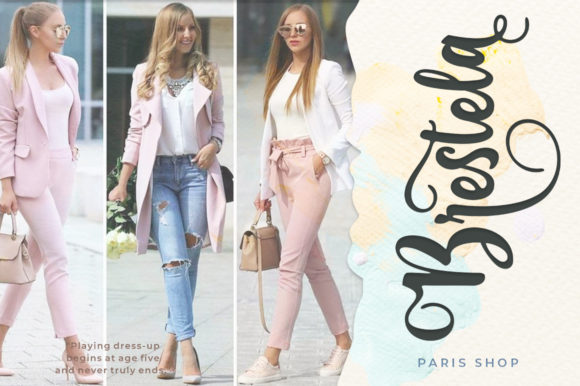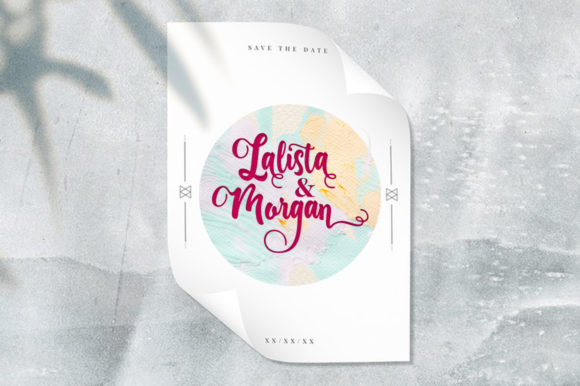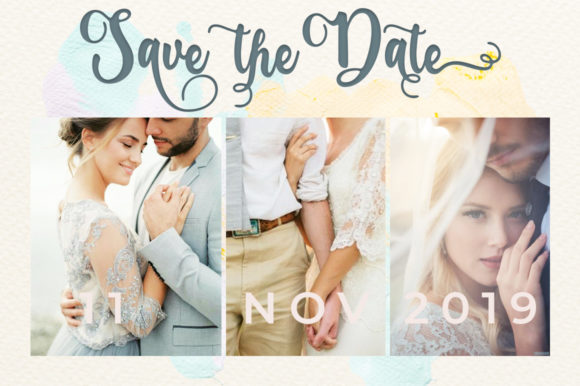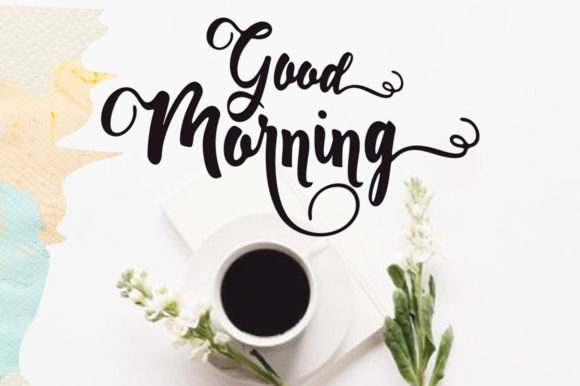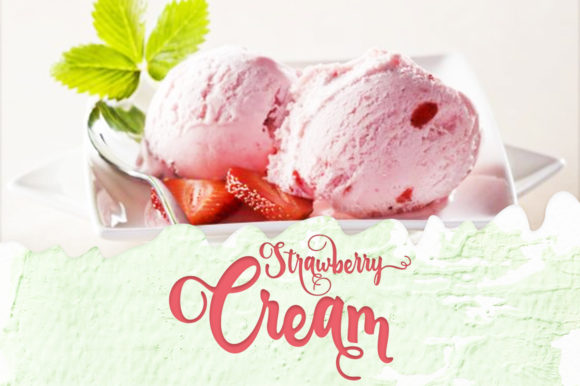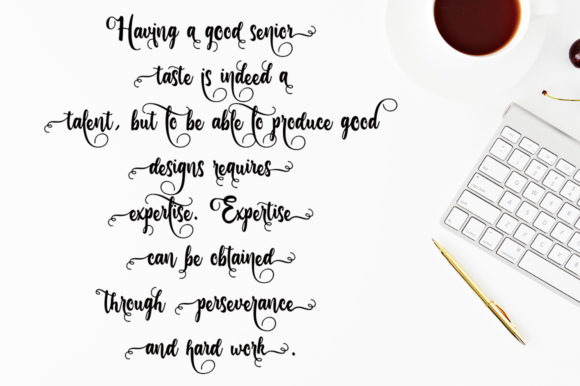
Introducing Arlistan Font: The Ultimate Elegance for Designers and Crafters
In the world of typography, fonts play a crucial role in conveying the tone and aesthetic of a design. For designers and crafters looking to elevate their projects with a touch of elegance and whimsy, the Arlistan Font is an exceptional choice. This stunning font features rounded swashes and playful details, delivering an incredibly stunning and fancy font experience that is sure to captivate audiences.
What Makes Arlistan Font Stand Out?
The Arlistan Font is distinguished by its unique blend of classic elegance and modern playfulness. Its rounded swashes add a fluid, dynamic feel to any design, while the playful details inject a sense of fun and creativity. This font is perfect for projects that require a sophisticated yet approachable look, such as branding, packaging, and editorial design.
Key Features of Arlistan Font
- Rounded Swashes: The font’s rounded swashes provide a smooth, flowing aesthetic that can add a touch of luxury to any design.
- Playful Details: The playful details in Arlistan Font ensure that the design doesn’t feel too formal or stiff, making it versatile for a wide range of applications.
- Elegant and Fancy: The overall look of Arlistan Font is incredibly elegant and fancy, making it suitable for high-end branding, wedding designs, and more.
Use Cases for Arlistan Font
Arlistan Font’s versatility makes it suitable for a variety of design projects. Here are some of the best use cases:
- Branding and Logo Design: The unique and elegant look of Arlistan Font makes it perfect for creating memorable brand identities.
- Wedding and Event Design: For wedding invitations, programs, and event branding, Arlistan Font adds a touch of sophistication and romance.
- Packaging Design: The font’s playful yet elegant feel makes it suitable for product packaging that needs to stand out on shelves.
- Editorial Design: Use Arlistan Font in magazines, blogs, and digital publications to add a touch of elegance to your editorial content.
Tips for Using Arlistan Font Effectively
To get the most out of Arlistan Font, consider the following tips:
- Pair with Simple Fonts: For maximum impact, pair Arlistan Font with simpler fonts for body text to maintain readability.
- Experiment with Swashes: Don’t be afraid to experiment with the font’s swashes and playful details to create a unique look.
- Consider Font Size: Use Arlistan Font in larger sizes for headings and titles to make the most of its elegant features.
Arlistan Font is a versatile and elegant typeface that can elevate any design project with its unique blend of rounded swashes and playful details. Whether you’re a designer looking to create stunning branding, a crafter working on a special project, or simply someone who appreciates beautiful typography, Arlistan Font is an excellent choice. Its ability to deliver an incredibly stunning and fancy font experience makes it a valuable addition to any design toolkit.